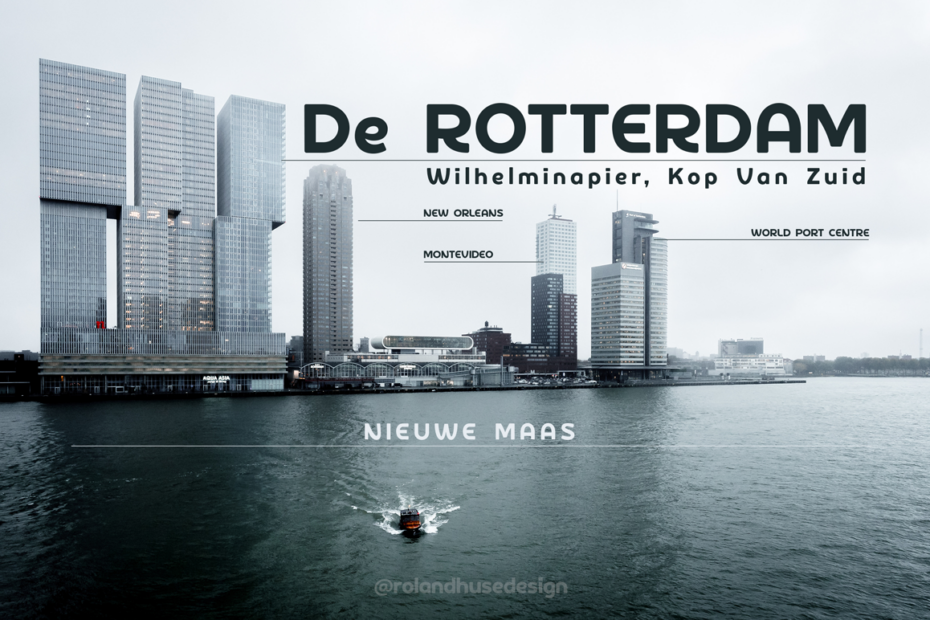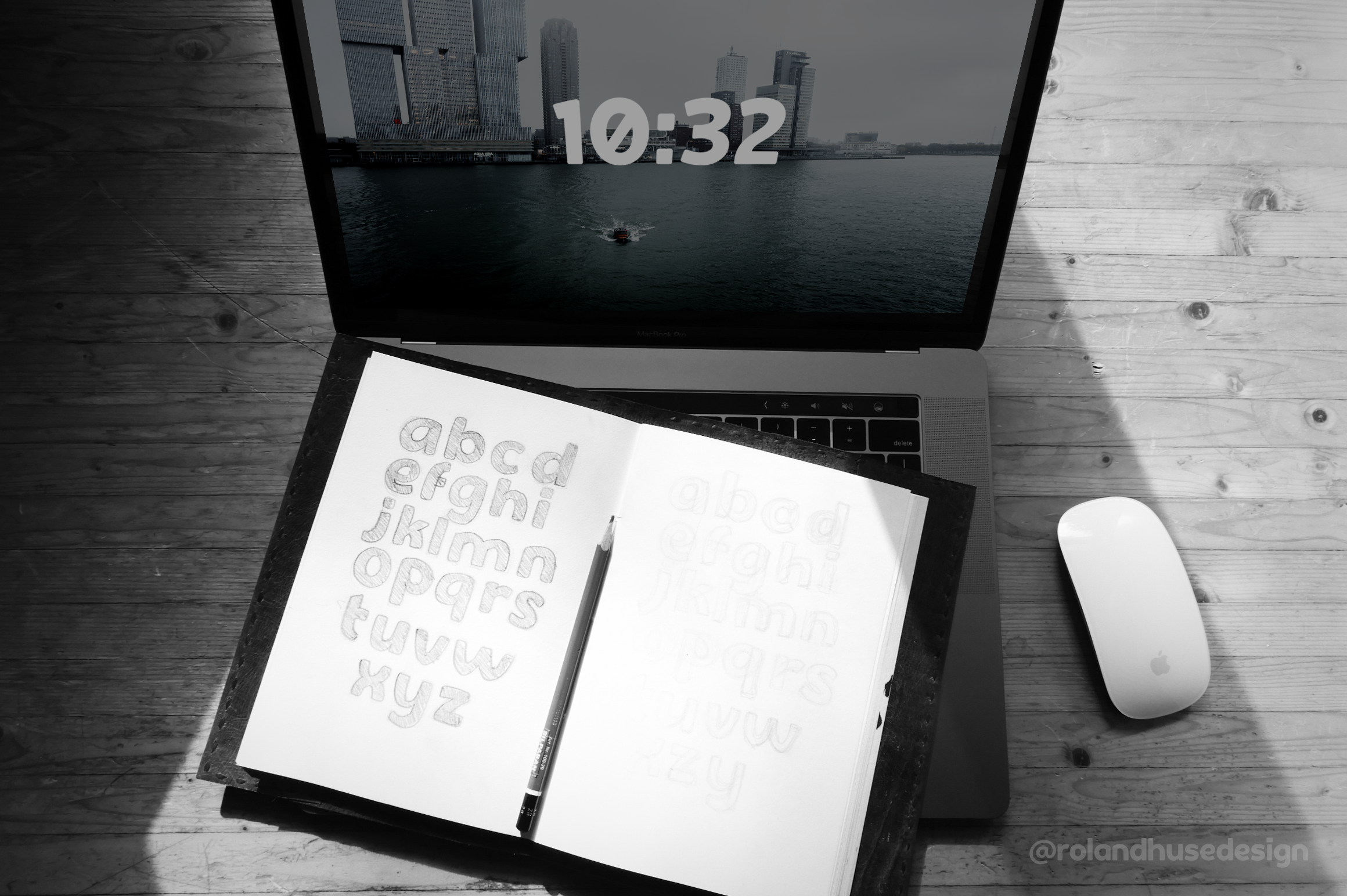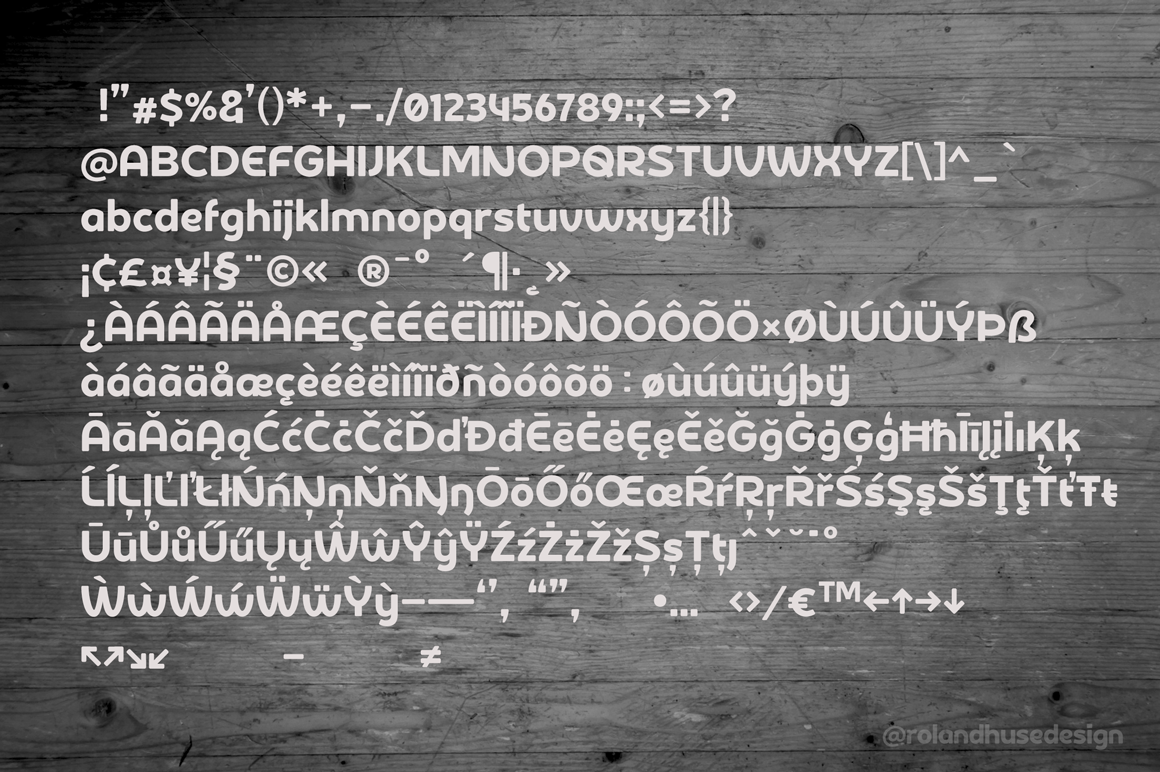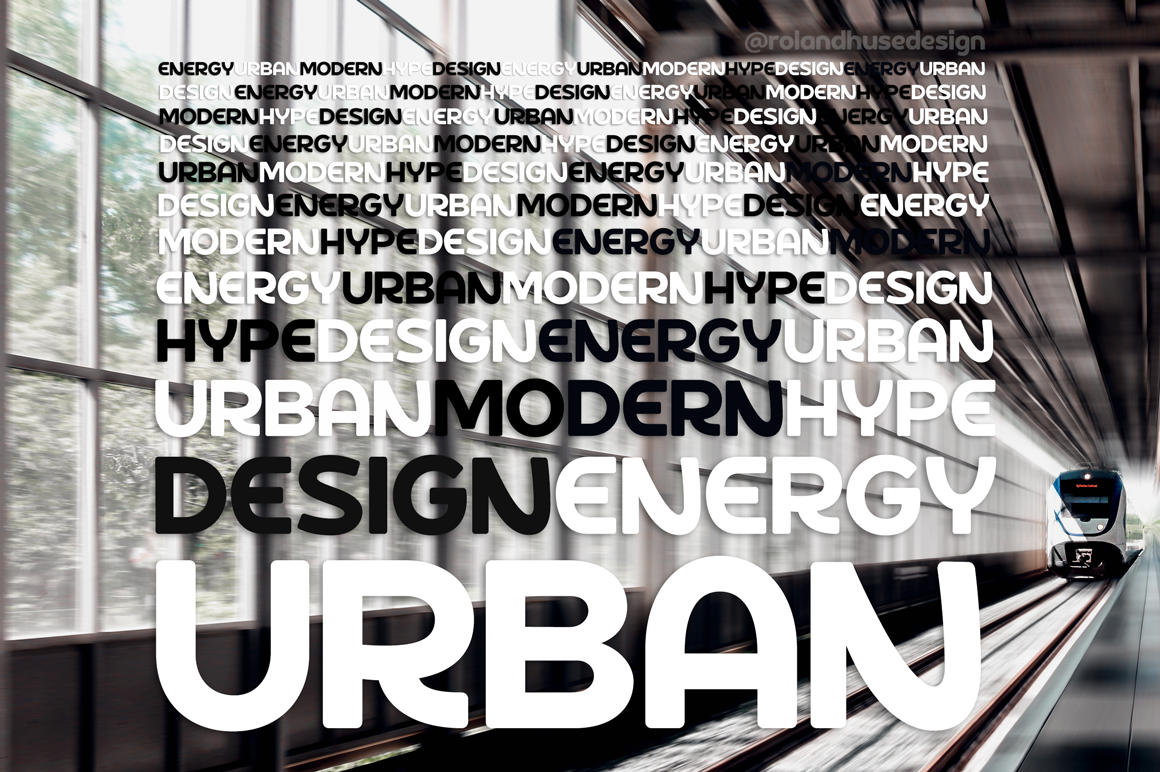
Creating Something from the Heart: The Story of De Rotterdam Font
As I sit here, reminiscing about the moments that sparked my passion for design, I’m taken back to the first time I saw the De Rotterdam building rising from the ground. Its sleek, modern architecture and sheer scale left me in awe, and little did I know that this building would become the inspiration for my very own font.
De Rotterdam Font is a culmination of my journey, from being a factory worker to a full-time freelance designer. This font, named after the iconic building, is designed to be a versatile tool for designers, containing all European language accents and characters. Its value lies in its ability to add a touch of Rotterdam’s unique charm to any project, making it a must-have for designers looking to add a personal touch to their work.
De Rotterdam Font Key Features
- Font Family: De Rotterdam, De Rotterdam Condensed, De Rotterdam Compressed, De Rotterdam Expanded
- Character Set: Latin, Cyrillic, Greek
- Unique Characteristics: Geometric sans-serif design, influenced by Dutch modernism, clean lines, and subtle rounded edges
- Font Sizes: Available in 5 weights (Light, Regular, Medium, Bold, Black) and 5 styles (Regular, Italic, Condensed, Compressed, Expanded)
De Rotterdam Font Review
I recently had the chance to work with De Rotterdam Font, and I must say it’s a unique and intriguing typeface. Here’s my honest review.
- Unconventional approach: De Rotterdam Font’s unusual design elements, such as the varying line widths and bold geometric shapes, set it apart from more traditional fonts.
- Functional for headlines: The font’s boldness and distinctive look make it well-suited for use in headlines and titles, where its impact is most needed.
- Attention-grabbing: De Rotterdam Font is sure to grab the viewer’s attention, making it a great choice for projects where you want to stand out.
- Readability issues: The font’s unique design elements can sometimes make it difficult to read, especially in smaller sizes or when used for large blocks of text.
- Limited versatility: De Rotterdam Font may not be the best choice for projects where a more traditional, easy-to-read font is needed.
- Overuse risk: The font’s bold, eye-catching design may lead to overuse, which could make it lose its impact and become clichéd.
Overall, De Rotterdam Font is a bold and attention-grabbing typeface that can add a unique touch to your designs. However, it may not be the best choice for every project, and its limitations should be carefully considered.
De Rotterdam Font: A Practical Application Guide
Tips for Getting the Most Out of De Rotterdam Font
Use De Rotterdam Font for bold, modern designs that require a strong typographic statement. Pair it with contrasting colors to create a visually appealing effect.
Use De Rotterdam Font for:
- Modern branding and logos
- Editorial and publishing designs